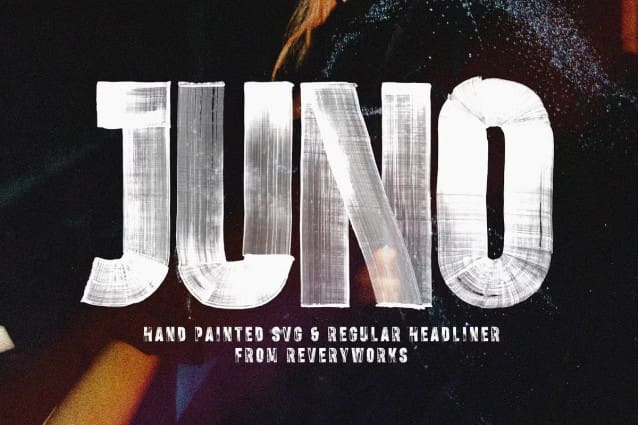
Juno Font
JUNO Font – A bold condensed Hand Painted Headliner Font from ReveryWorks. Each character was individually hand-painted to give it unique texture and achieve the drag marks. Its here to help you make STRONG and POWERFUL statements in your projects!
This font includes Multi-lingual support. The following characters are included: À Ä Å Ã Æ Ç É Ê È Ë Í Î Ì Ï Ñ Ó Ô Ò Ö Õ Ø ß Š Û Ù Ü Ý Ÿ